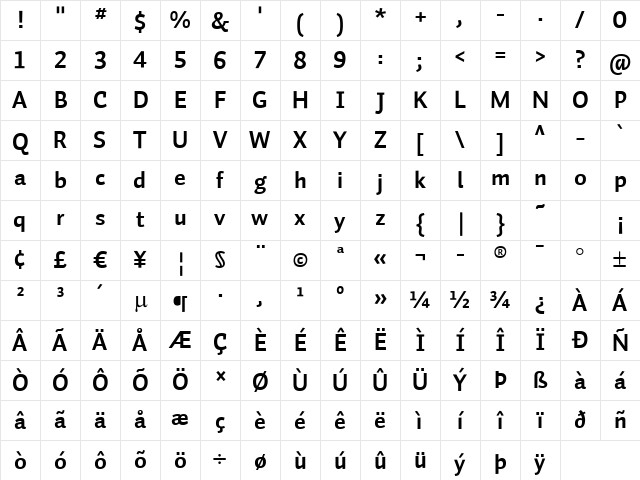
Auto 3 Bold LF
Style: Bold LF
Design Context for Auto 3
Auto 3 is a composed and adaptable typeface that performs quietly and consistently across a wide range of design contexts. Its bold stroke weight gives it real presence on the page.